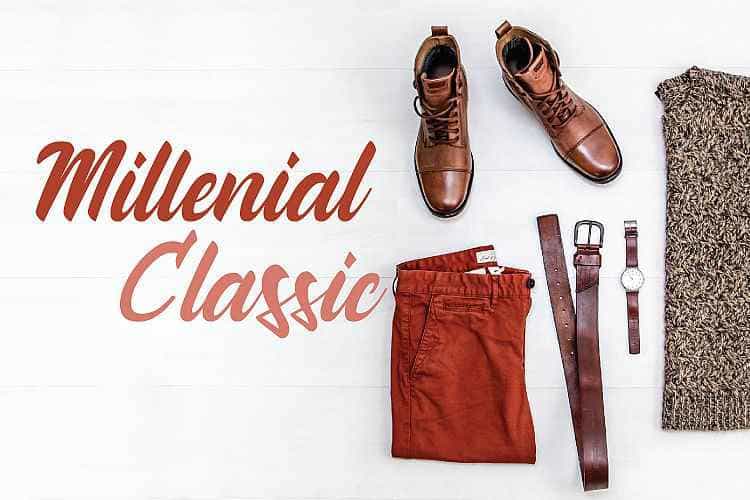
Introducing Andallan by Sabrtype Studio, designed and released for people who an looking for beautiful handwriting with the pains, smooth and clean edges. Great for use in printed quotes logos invitation cards cover and packing for products, headers letterhead posters apparels labels and many other!